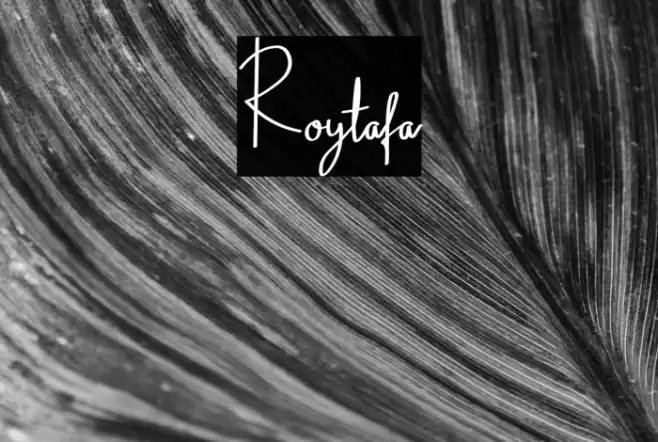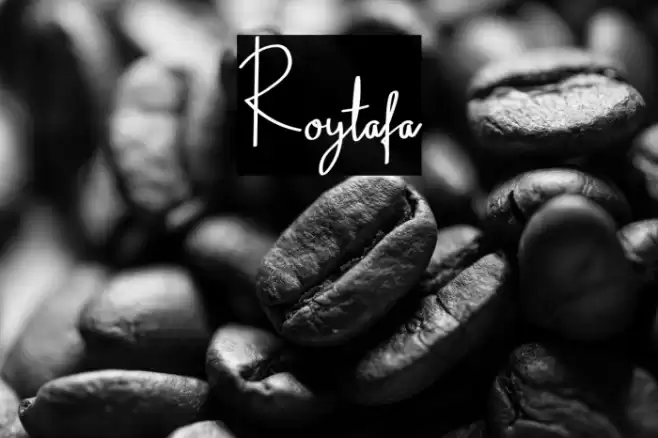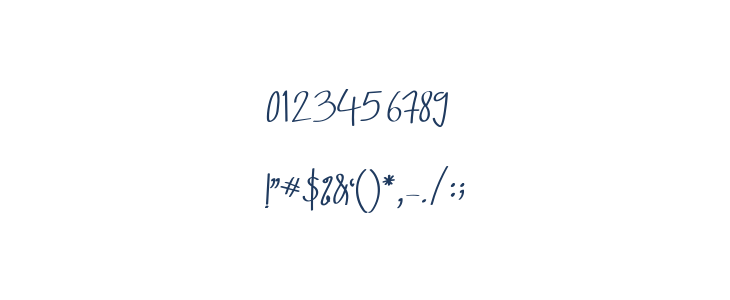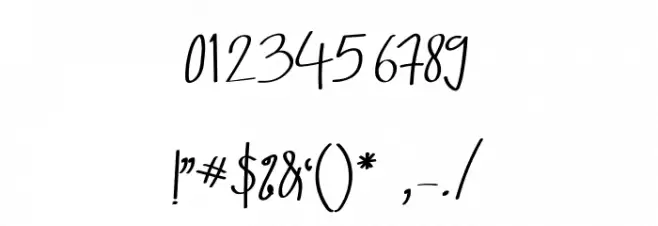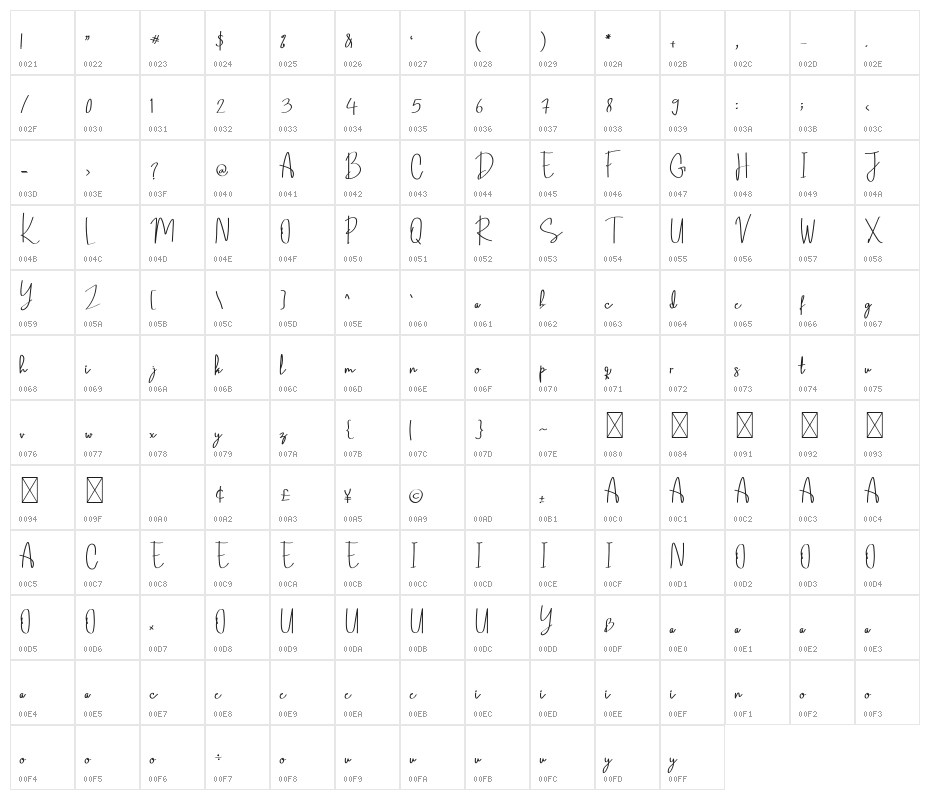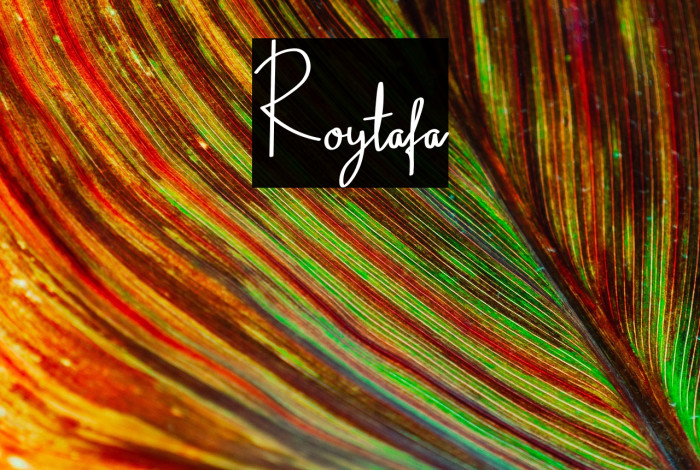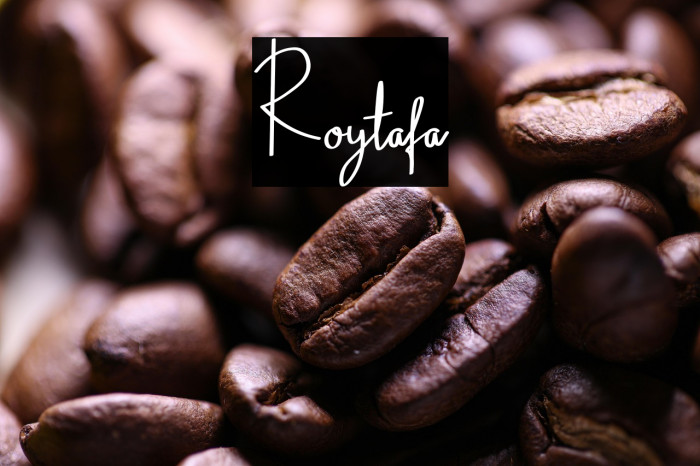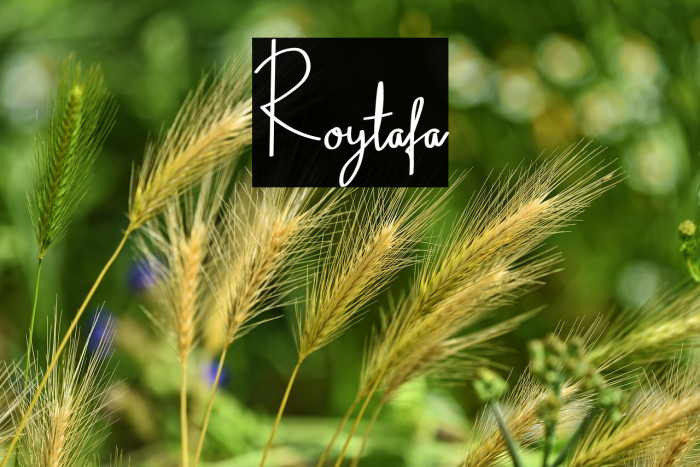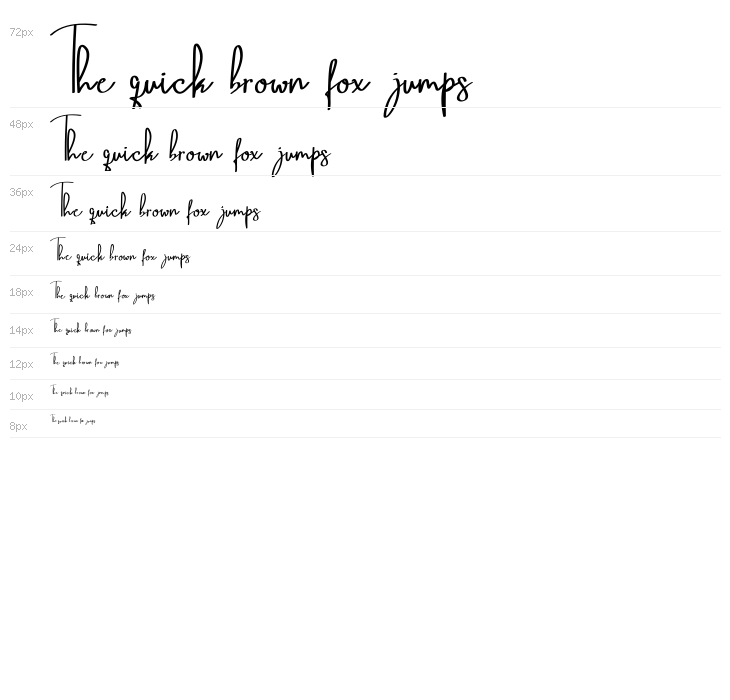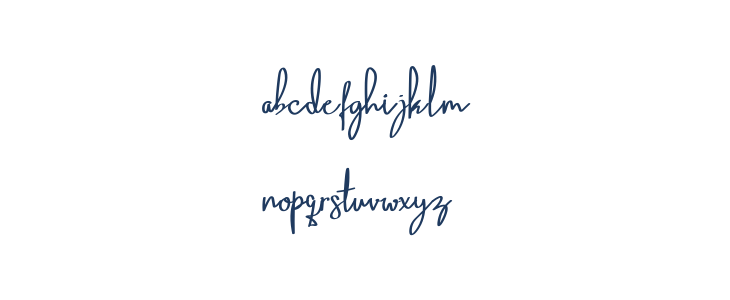
Roytafa Font
Roytafa Description
This font features a playful and whimsical design with tall, narrow uppercase letters and a more flowing, cursive style for the lowercase. The uppercase letters have a distinct hand-drawn quality, characterized by their elongated forms and slightly irregular strokes, giving them a lively and dynamic appearance. The lowercase letters complement this with a script-like elegance, featuring smooth, connected strokes that add a touch of sophistication. The numerals maintain the playful aesthetic with a consistent stroke width, while the special characters blend seamlessly with the overall style, enhancing its versatility. This font's unique combination of styles makes it suitable for creative and artistic projects.
A playful, whimsical font with tall uppercase and cursive lowercase letters from Uncategorized fonts.
- Proposed Projects: Ideal for greeting cards, invitations, branding, and artistic projects that require a personal touch.
- Use Case: Logos, Headlines, Artistic projects